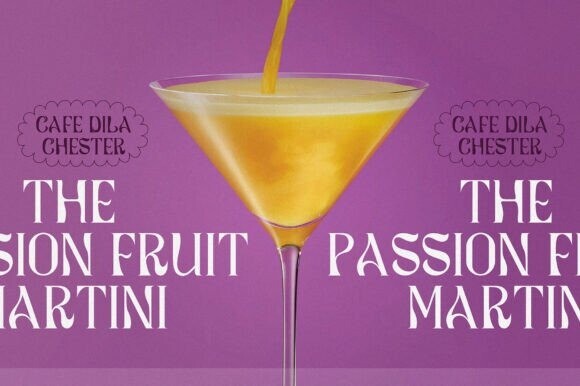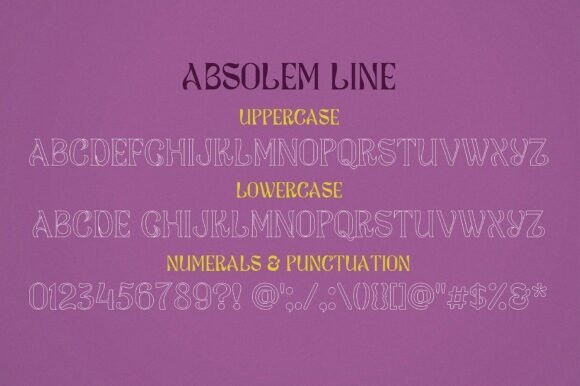
Absolem Font
Absolem Font! It’s happy, it’s weird, it’s wonderful. Great for any project that needs something loud and avant-garde.
With a magical quality and eerie vibe Absolemis excellent for headlines, packaging, posters, and any other display purposes.